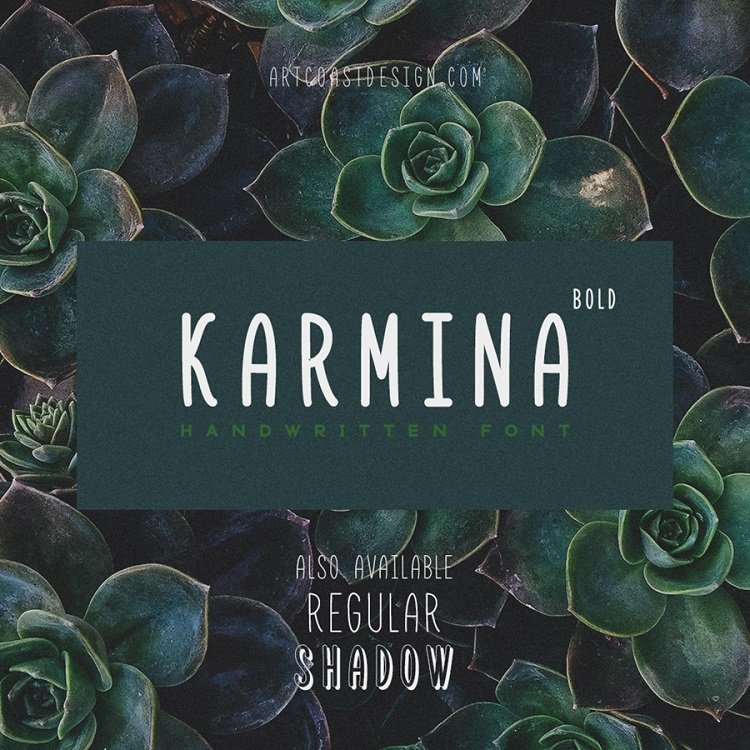
Karmina Handwritten Font
Today’s exclusive freebie is Karmina Bold, an handwritten font designed byDmitry Mashkin from Artcoast Design. It is a very readable and balanced typeface suitable for every kind of design. The full version – containing two weights more (Regular and Shadow) – is available for sale on Creative Market.